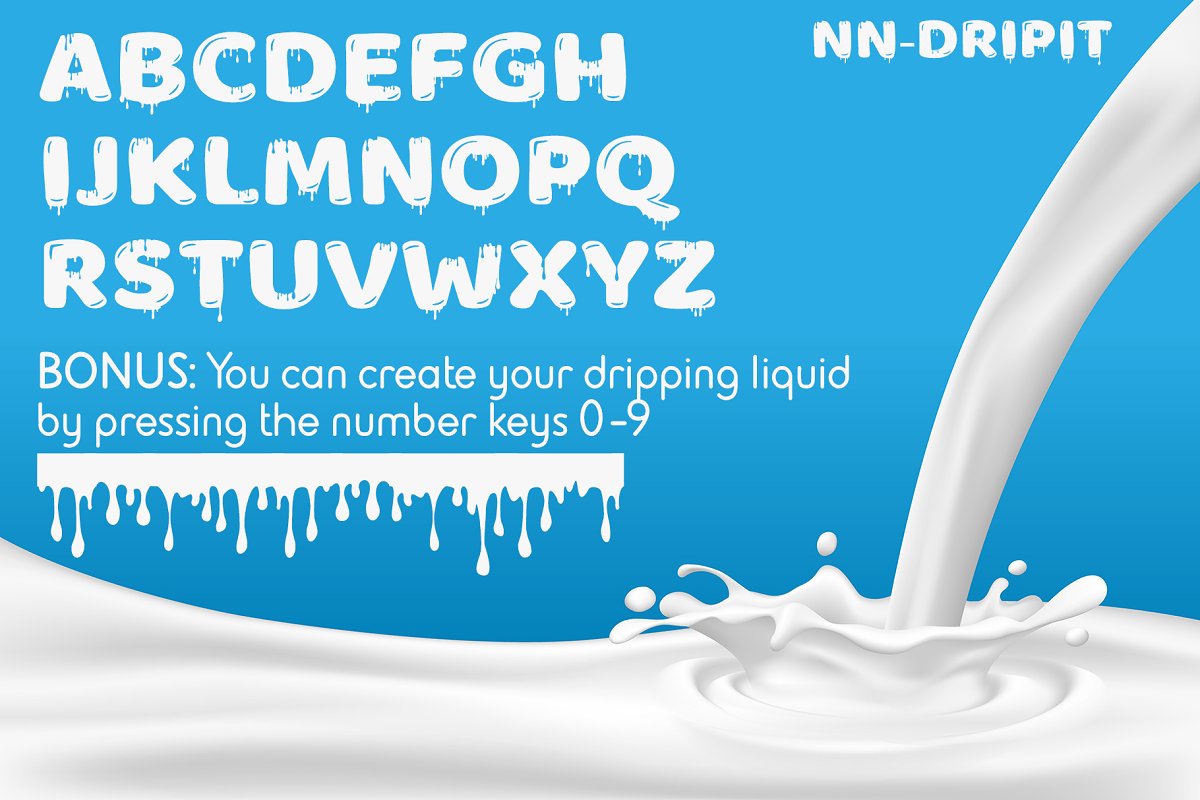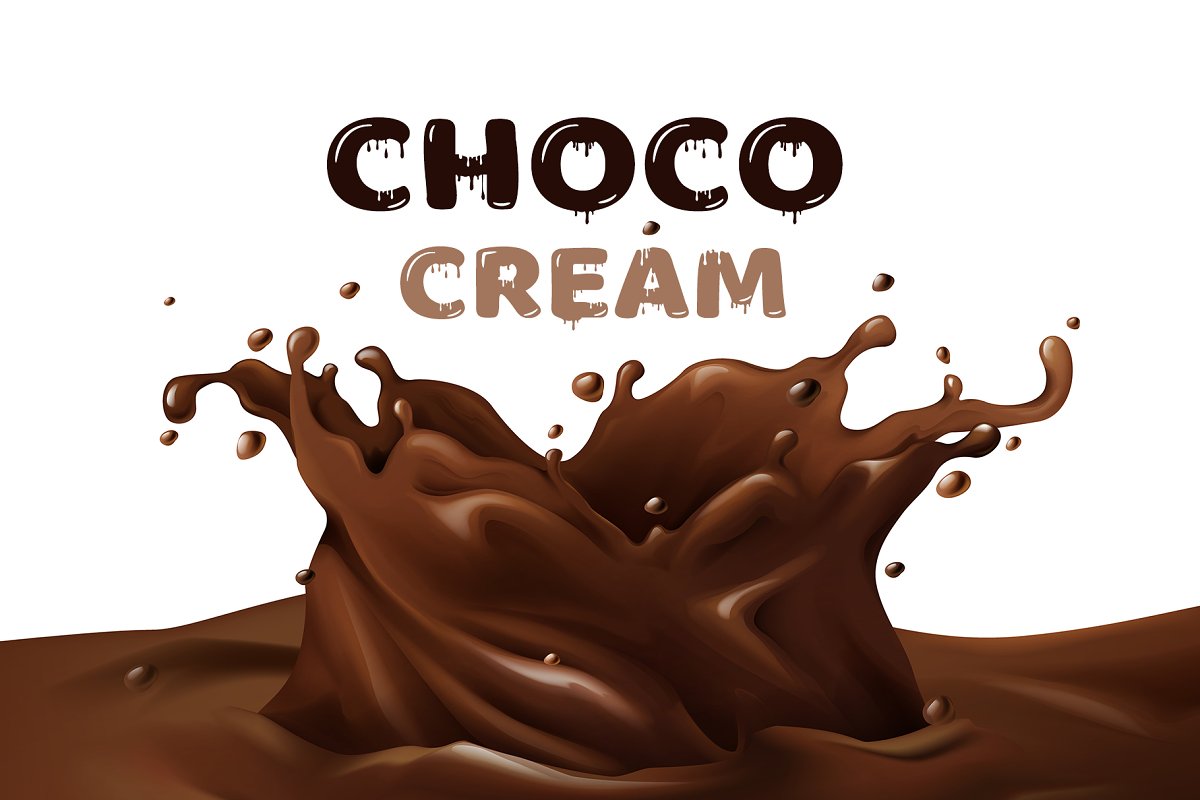
About the NN DripIt Font
NN-DripIt is a funny OTF font that you can use in many titles / logos that has to do with milk, chocolate, honey, water etc, Only Uppercase letters included, Extra bonus: Type 0-9 to create unlimited melting dripping liquids (see the image for example), Thank you for visiting my store,